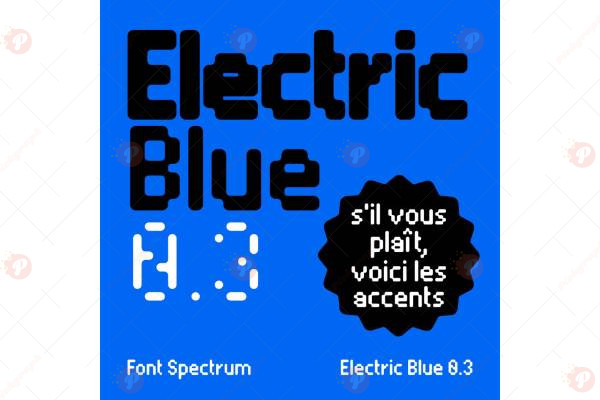
The Electric Blue Font Free is a bold futuristic display typeface that brings a tech-inspired and electrifying vibe to your designs. With its sharp edges, modern style, and digital aesthetics, this font is perfect for gaming, technology branding, posters, event designs, and social media graphics.
Its dynamic and eye-catching design makes it a great choice for logos, headlines, esports visuals, music covers, and digital artwork. If you’re looking to add a futuristic and high-energy feel to your projects, the Electric Blue Font Free is the perfect fit.
Typeface: Display / Futuristic / Modern
Style: Bold / Tech-Inspired / Digital / Creative